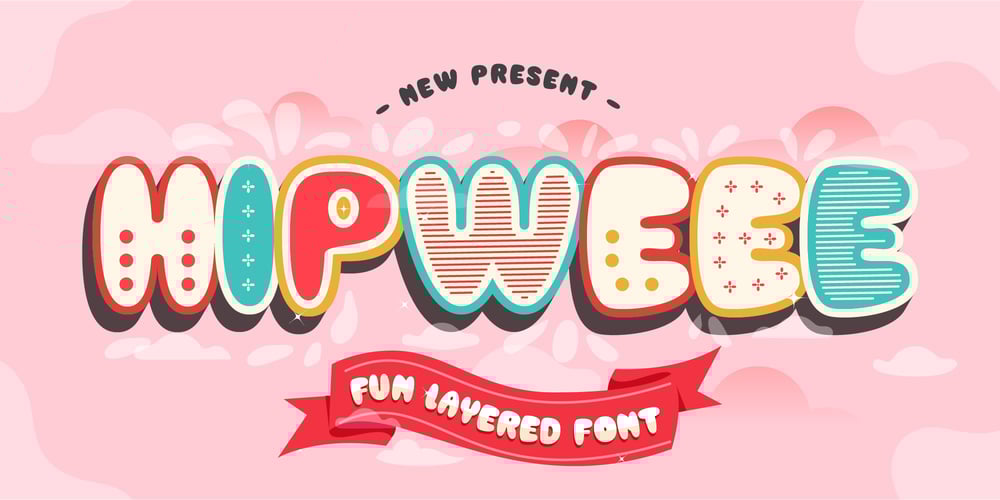
Hipweee
Hipweee font
Hipweee Font Family was designed by panji nugroho and published by Storictype. Hipweee contains 7 styles and family package options. IntroducingHipweee Layered FontHipweee, A new carefully crafted layered rounded Typeface. The Ideas of this fonts are from wide range of reference, baby, kids, school, cafe, food desert & beverages are our main focus for this fonts. So the looks of this fonts must be in the wide range of the reference above. It’s Versatile, Fun, Cute and Beauty feel that you get in Hipweee TypefaceHipweee Created with 7 Layer : Base, Extrude, Shadow, Dot, Flower, Hatch & Inline. Perfect fitted layer to give you a more contrast, more bold look of the title. Our creation on the display to give you a reference what it looks like on your project. such as Branding, Header, Logotype, Poster, and etc. It shows that Gemoy clearly can accommodate various design style.Language Support : Afrikaans, Albanian, AsuBasque, Bemba, Bena, Breton, Catalan, Chiga, Colognian, Cornish, Croatian, Czech, Danish, Dutch, English, Estonian, Faroese, Filipino, Finnish, French, Friulian, Galician, German, Gusii, Hungarian, Indonesian, IrishItalian, Kabuverdianu, Kalenjin, Kinyarwanda, Latvian, Lithuanian, Lower Sorbian, Luo, Luxembourgish, Luyia, Machame, Makhuwa, Meetto, Makonde, Malagasy, Maltese, Manx, Morisyen, North Ndebele, Norwegian , Bokmål, Norwegian Nynorsk, Nyankole, Oromo, Polish, Portuguese, Quechua, Romanian, Romansh, Rombo, Rundi, Rwa, Samburu, Sango, Sangu, Scottish Gaelic, Sena, Serbian, Shambala, Shona, Slovak, Soga, Somali, Spanish, Swahili, Swedish, Swiss, German, Taita, Teso, Turkish, Upper Sorbian, Uzbek (Latin), Volapük, Vunjo, Western, Frisian, Zulu